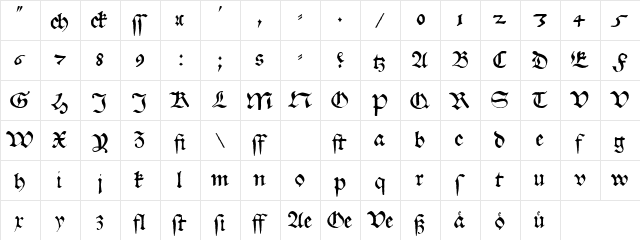
Wittenberg Schwabacher Regular
Design Context for Wittenberg Schwabacher Typeface
Wittenberg Schwabacher is a composed and adaptable typeface that performs quietly and consistently across a wide range of design contexts.